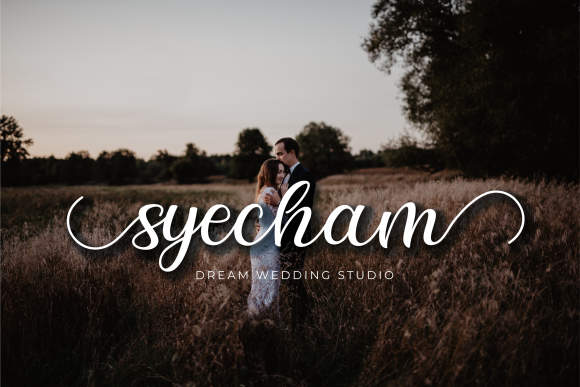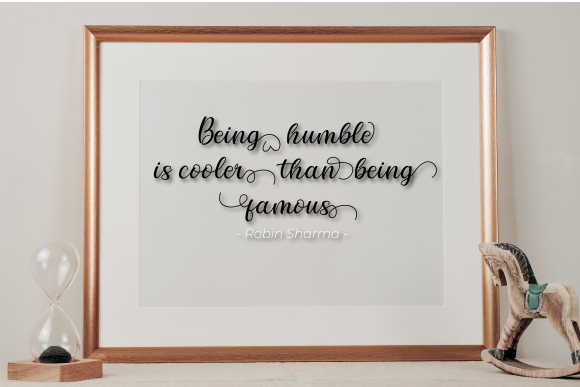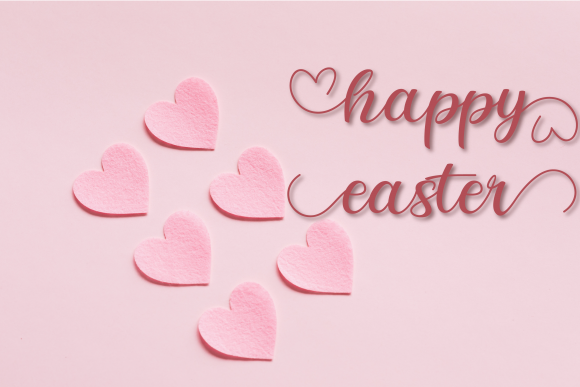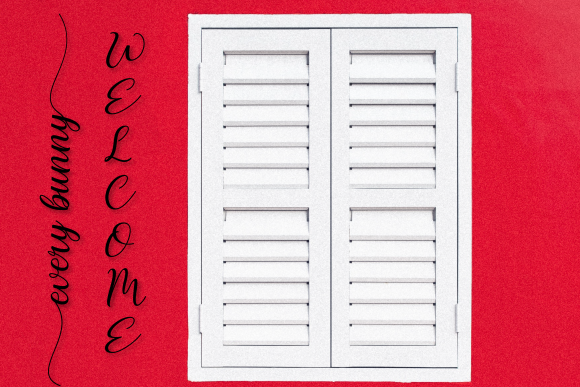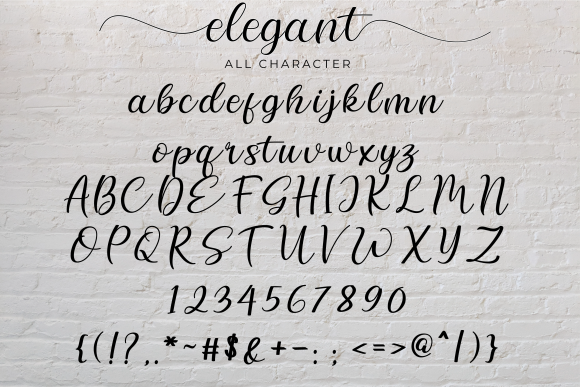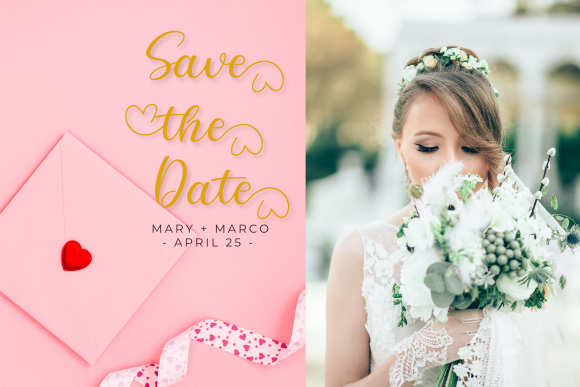
Elegant Font: Elevate Your Design with Luxury and Sophistication
Are you looking for a font that exudes elegance and sophistication? Look no further than the Elegant font, a beautiful light handwritten font that is sure to add a touch of luxury to any design project. With its unique feel and stunning impact, this font is perfect for designers and crafters who want to create something truly special.
What Makes Elegant Font So Special?
The Elegant font is a masterpiece of typography, with a delicate and refined aesthetic that is sure to impress. Its light and airy feel makes it perfect for designs that require a touch of elegance and sophistication, such as luxury branding, high-end fashion, and upscale wedding invitations.
One of the standout features of the Elegant font is its unique feel. With its subtle imperfections and organic shape, this font has a distinctly handmade quality that sets it apart from more traditional fonts. This makes it perfect for designers who want to add a personal touch to their work.
The Power of PUA Encoding
The Elegant font is PUA (Private Use Area) encoded, which means that it comes with a range of amazing glyphs and ligatures that are easy to access. PUA encoding allows designers to access a wide range of special characters and glyphs that can be used to add an extra layer of creativity and sophistication to their designs.
With the Elegant font, you can easily access a range of alternative characters, ligatures, and swashes that can be used to add a touch of elegance and refinement to your designs. This makes it perfect for designers who want to create complex and visually appealing designs that stand out from the crowd.
Uses for the Elegant Font
The Elegant font is incredibly versatile, and can be used for a wide range of design projects. Here are just a few ideas to get you started:
- Luxury branding: The Elegant font is perfect for high-end brands that want to create a sophisticated and refined image.
- Wedding invitations: This font is ideal for wedding invitations, save-the-dates, and other stationery that requires a touch of elegance and sophistication.
- Fashion design: The Elegant font is perfect for fashion designers who want to create stunning and stylish branding and marketing materials.
- Signage: This font can be used for signage, menus, and other display materials that require a touch of luxury and sophistication.
Tips for Using the Elegant Font
Here are a few tips for getting the most out of the Elegant font:
- Use it sparingly: The Elegant font is a statement font, and should be used sparingly to maximum effect.
- Pair it with contrasting fonts: Pair the Elegant font with contrasting fonts to create visual interest and add depth to your designs.
- Experiment with glyphs and ligatures: Don’t be afraid to experiment with the glyphs and ligatures that come with the Elegant font – they can add an extra layer of creativity and sophistication to your designs.
The Elegant font is a stunning and sophisticated font that is sure to elevate any design project. With its unique feel, PUA encoding, and range of glyphs and ligatures, this font is perfect for designers and crafters who want to create something truly special. Whether you’re working on a luxury branding project, a wedding invitation, or a fashion design, the Elegant font is sure to add a touch of elegance and sophistication.